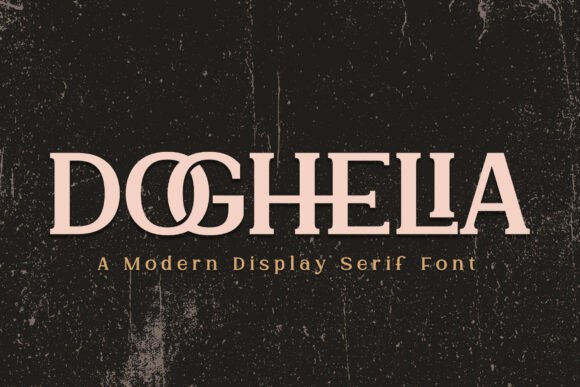
Introducing Doghelia Font: The Ultimate Bold Serif Display Font for Modern Designs
In the world of typography, a font can make or break a design. When it comes to creating a lasting impression, the right font can elevate your work from ordinary to extraordinary. Doghelia, a captivating and modern bold serif display font, is here to revolutionize your designs with its confident and stylish presence.
A Powerful Statement with Strong, Chunky Serifs
Doghelia’s strong, chunky serifs and clean lines make a powerful statement, perfect for designs that demand attention. Its bold presence ensures that your message is delivered with impact, while its refined details add a touch of class. This font is not just a design element; it’s a tool for creativity, allowing you to craft unique and memorable typography.
The Art of Ligatures: Elevating Typography to New Heights
One of Doghelia’s key features is its extensive collection of ligatures, offering a unique and elegant way to connect letters and create a seamless flow. These ligatures are not just a design element; they are a tool for creativity, allowing you to craft unique and memorable typography. With Doghelia’s ligatures, you can add a touch of sophistication and elegance to your designs, setting them apart from the rest.
A Versatile Powerhouse for a Wide Range of Applications
Doghelia is a versatile powerhouse, making it ideal for a wide range of applications. Whether you’re designing a striking logotype, developing a cohesive branding identity, or creating eye-catching headlines, Doghelia’s distinct personality will elevate your work. Its bold presence ensures that your message is delivered with impact, while its refined details add a touch of class.
Doghelia is more than just a font; it’s a design solution for creatives. Whether you’re a designer, crafty DIY enthusiast, or a branding expert, Doghelia has got you covered. Its modern and sophisticated aesthetic makes it perfect for a wide range of projects, from logos and branding to packaging and advertising.
Key Features of Doghelia Font
- Bold Serif Display Font: Doghelia’s strong, chunky serifs and clean lines make a powerful statement.
- Extensive Collection of Ligatures: Create unique and elegant typography with Doghelia’s ligatures.
- Versatile and Modern: Perfect for a wide range of applications, from logotypes to headlines.
- Sophisticated and Approachable: Doghelia’s contemporary flair makes it both refined and accessible.
Why Choose Doghelia Font?
With Doghelia, you can:
- Create striking logotypes and branding identities that demand attention.
- Develop cohesive and memorable typography that sets you apart.
- Elevate your designs with a touch of sophistication and elegance.
- Make a lasting impression with Doghelia’s bold and refined presence.
Doghelia font is a game-changer for designers and crafters looking to elevate their typography. Its bold, modern aesthetic, extensive collection of ligatures, and versatility make it the perfect solution for a wide range of applications. With Doghelia, you can create stunning designs that demand attention and leave a lasting impression. So why wait? Get your hands on Doghelia font today and take your designs to the next level!